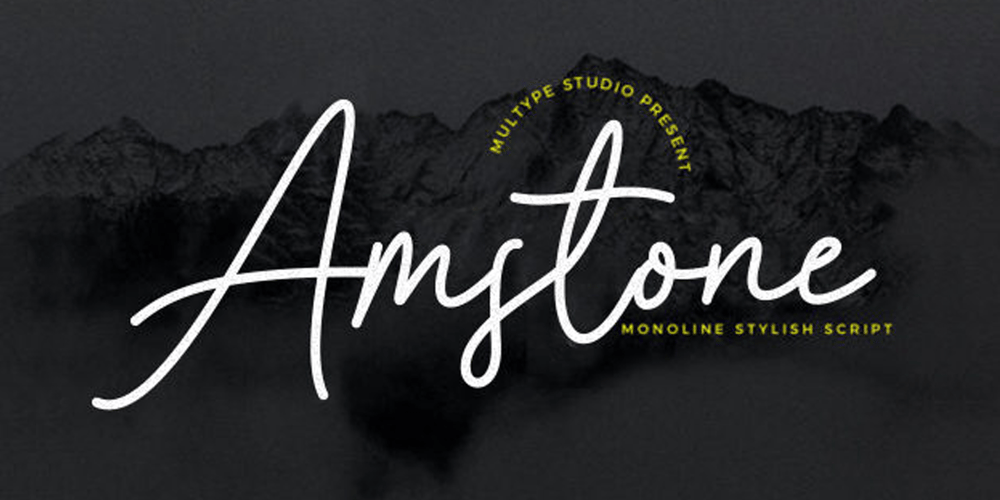
Amstone Font Family was designed by Mulia Yanto and published by Multype Studio. Amstone contains 1 styles and family package options. Amstone is a monoline stylish script font make this font looks elegant, natural, stylish and perfect for any awesome projects that need handwriting taste. Features : uppercase, lowercase, symbol, number, ligature, and also support multi language.Amstone is perfect for photography, watermark, social media posts, advertisements, logos & branding, invitation, product designs, label, stationery, wedding designs, product packaging, special events or anything that need handwriting taste.